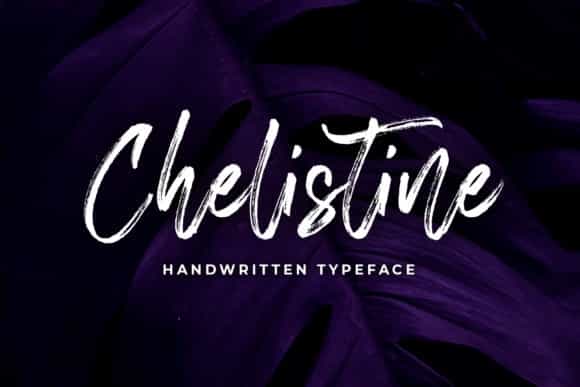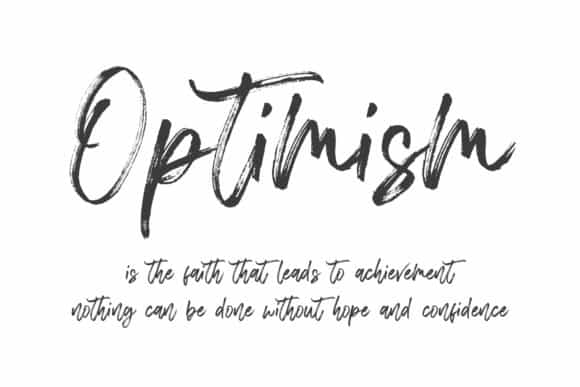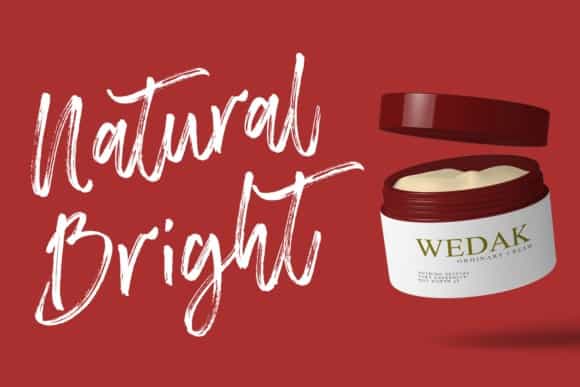
Chelistine is a handwritten font. It is a hand-painted font where each character is meticulously painted to the best. It is a one of a kind and contemporary script font which has the flowing curves. Get charmed by the playful look & feel of it!